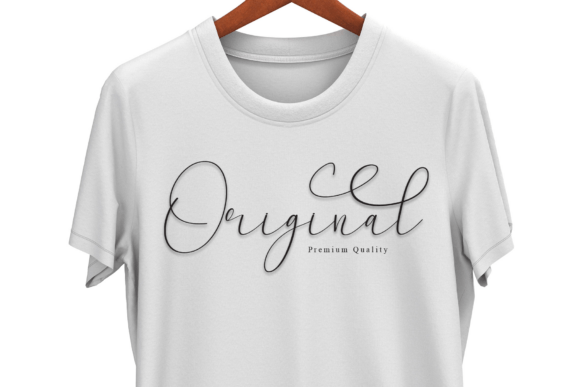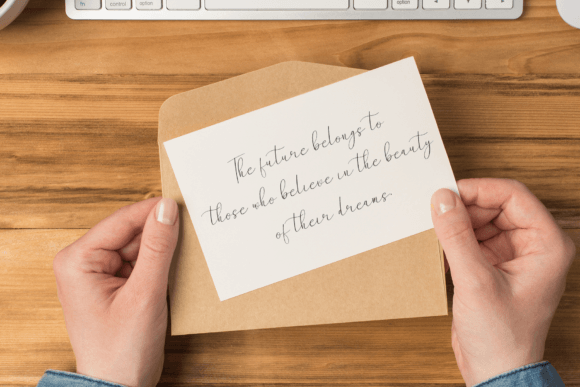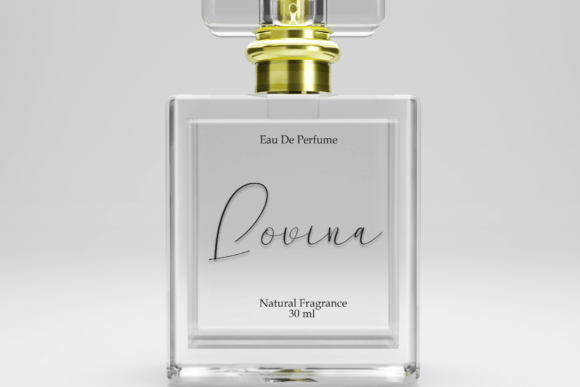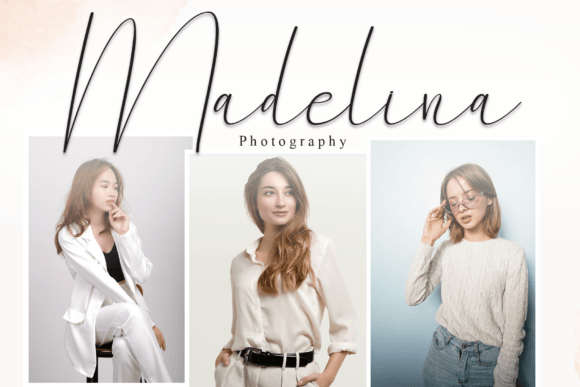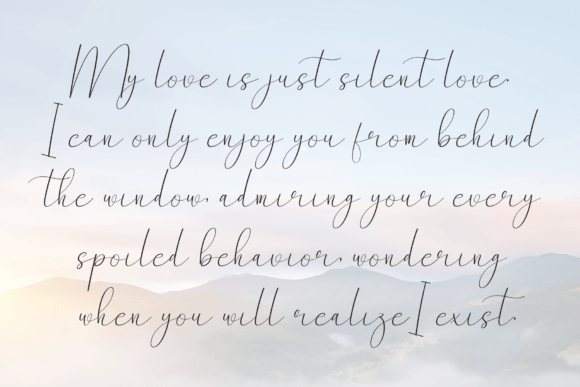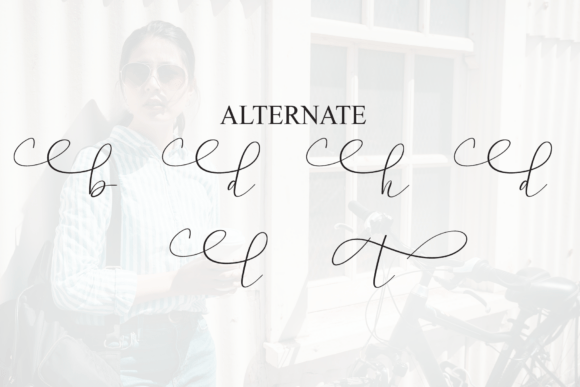
Introduction to Casual Vintage Font
Casual Vintage is a stylish and incredibly elegant script font.
Key Features of Casual Vintage Font
Why Choose Casual Vintage Font?
Casual Vintage Font offers exceptional quality and versatility, making it a valuable addition to your design toolkit. Whether you’re creating for personal projects or commercial use, Casual Vintage Font delivers professional results.